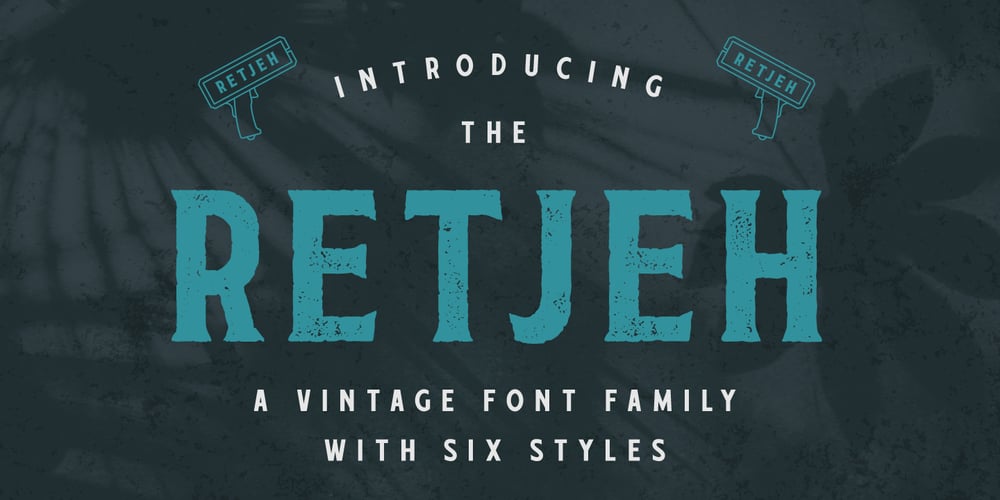
Retjeh Font Family was designed by Muhammad Hasan and published by MuSan. Retjeh contains 6 styles and family package options. Retjeh is a handcrafted vintage font, comes in Six styles there are Pressed, Linned, Dotted, Rough, Regular, and Sans. That makes Retjeh perfect for any Vintage styles as you needed. This font come with only All Caps, Number, and also Multilingual characters. If you purchase the complete family package, I’ll send you a bonus of 10 Editable Badges. Please email me at wellhellomusan@gmail.com with your MyFonts order number to get the bonus!